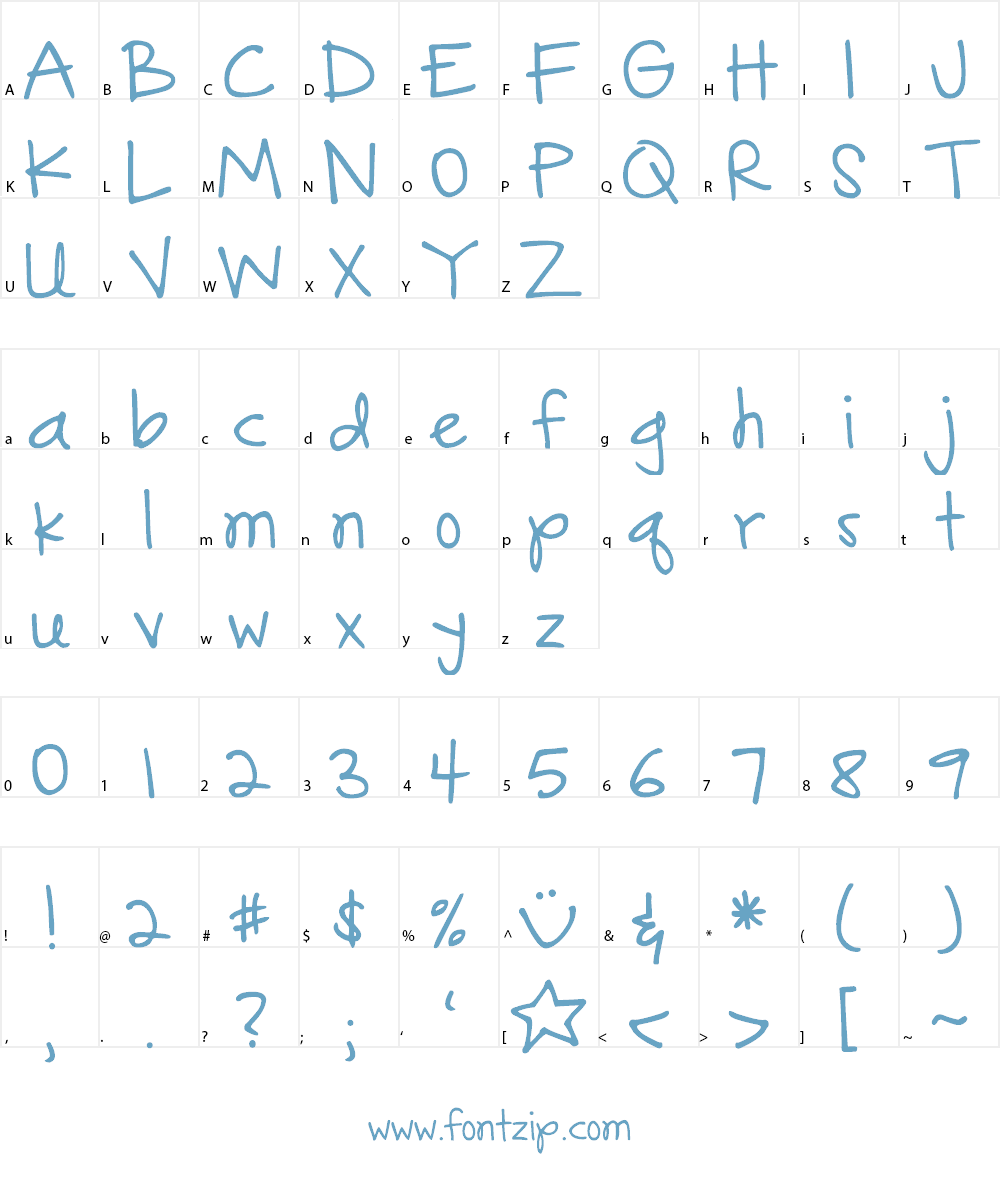
DJB Gonna Share My Story is a cute handwritten font with European language characters. Stylish and quirky yet readable. This font is free for personal use only.
This file contains one .ttf file with upper and lower case letters, numerals, and most common punctuation marks. It also contains European language characters plus a few cute dingbats. See preview for details.